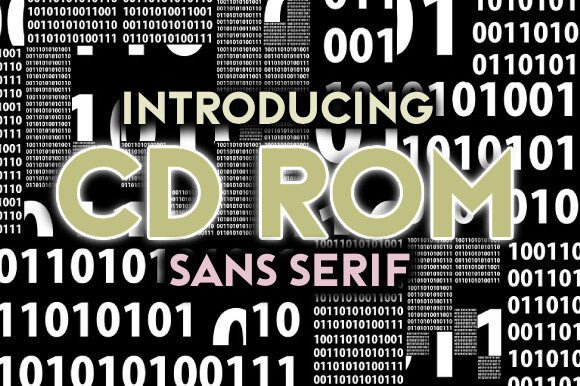
CD Rom Font: The Awesome Sans-Serif Font for Your Creative Projects
Are you looking for a unique and versatile font to elevate your creative projects? Look no further than the CD Rom Font, an amazing sans-serif font that will add a touch of sophistication and style to your designs. In this article, we’ll explore the features and benefits of the CD Rom Font, and discuss how you can use it to take your projects to the next level.
What is CD Rom Font?
CD Rom Font is a sans-serif font that is characterized by its clean and minimalist design. It is a digital font that is inspired by the typography of old CD-ROMs, with a nod to the nostalgia of the 90s and early 2000s. The font features a unique blend of geometric shapes and curved lines, making it both modern and retro at the same time.
Key Features of CD Rom Font
- Clean and Minimalist Design: CD Rom Font features a clean and minimalist design that makes it perfect for a wide range of applications, from posters and flyers to t-shirts and social media graphics.
- Sans-Serif Style: The font’s sans-serif style gives it a modern and sleek look that is perfect for designs that require a bit of sophistication.
- Unique Character Set: CD Rom Font features a unique character set that includes a range of letters, numbers, and symbols, making it perfect for a wide range of projects.
- Easily Readable: The font is easily readable, even at small sizes, making it perfect for use on a variety of materials, from business cards to billboards.
Benefits of Using CD Rom Font
So why should you use CD Rom Font for your creative projects? Here are just a few benefits of using this amazing font:
- Adds a Touch of Nostalgia: CD Rom Font’s retro vibe adds a touch of nostalgia to your designs, making them stand out from the crowd.
- Versatile: The font is versatile and can be used on a wide range of materials, from posters and flyers to t-shirts and social media graphics.
- Easily Customizable: CD Rom Font is easily customizable, allowing you to adjust the font size, color, and style to suit your needs.
Project Ideas Using CD Rom Font
So what can you create with CD Rom Font? Here are just a few project ideas to get you started:
- Posters and Flyers: Use CD Rom Font to create eye-catching posters and flyers for events, promotions, and products.
- T-Shirts and Merchandise: Create custom t-shirts and merchandise with CD Rom Font for a unique and stylish look.
- Social Media Graphics: Use CD Rom Font to create social media graphics that stand out from the crowd and grab attention.
- Logos and Branding: Use CD Rom Font to create logos and branding materials that are modern, sleek, and sophisticated.
Tips and Tricks for Using CD Rom Font
Here are a few tips and tricks for using CD Rom Font:
- Experiment with Font Sizes: Experiment with different font sizes to find the perfect size for your design.
- Play with Color: Play with different colors to find the perfect color scheme for your design.
- Combine with Other Fonts: Combine CD Rom Font with other fonts to create a unique and interesting look.
- Use on Different Materials: Use CD Rom Font on different materials, from paper to fabric, to create a cohesive look.
In conclusion, CD Rom Font is an amazing sans-serif font that will add a touch of sophistication and style to your creative projects. With its clean and minimalist design, unique character set, and versatility, CD Rom Font is perfect for a wide range of applications, from posters and flyers to t-shirts and social media graphics. So why not give CD Rom Font a try and see how it can elevate your designs?